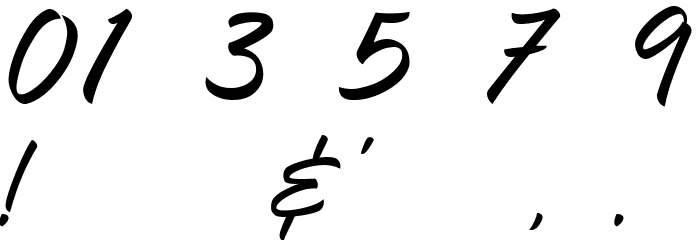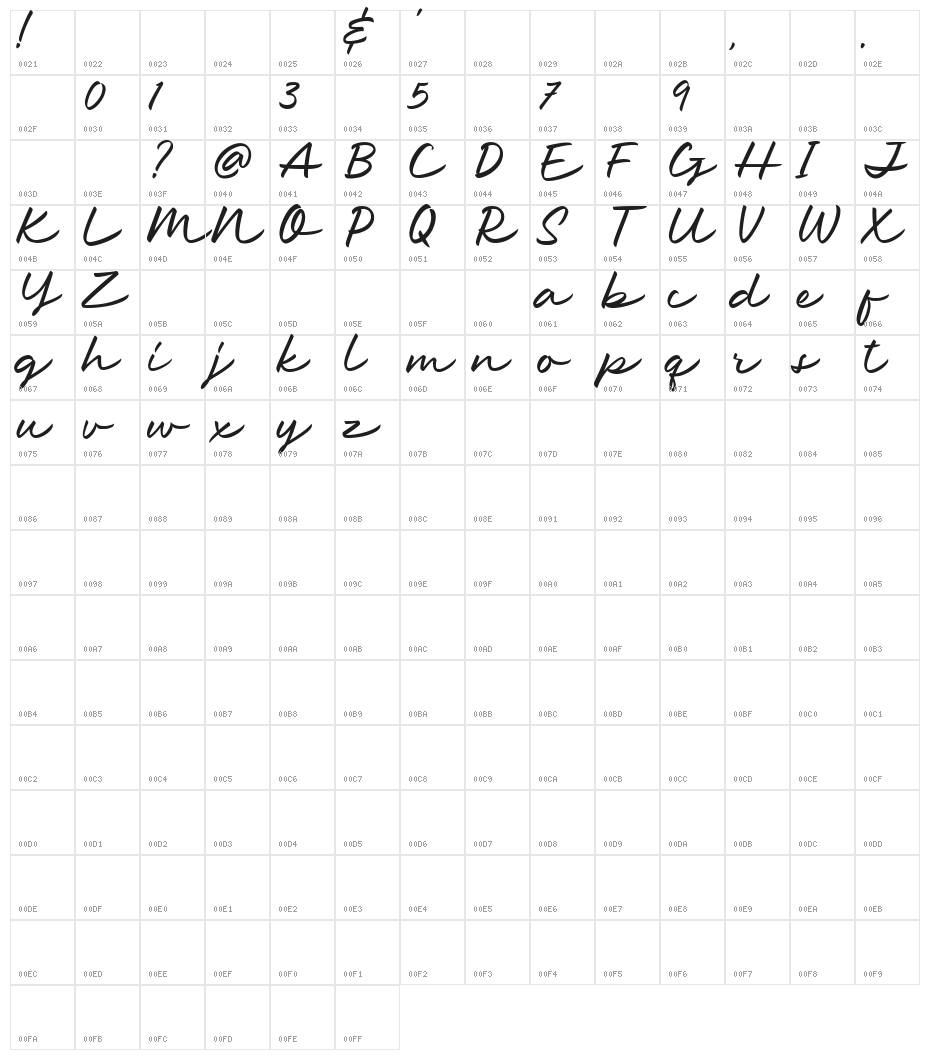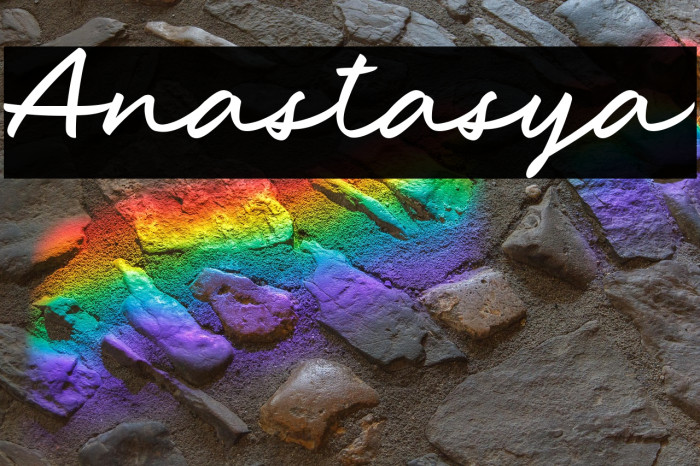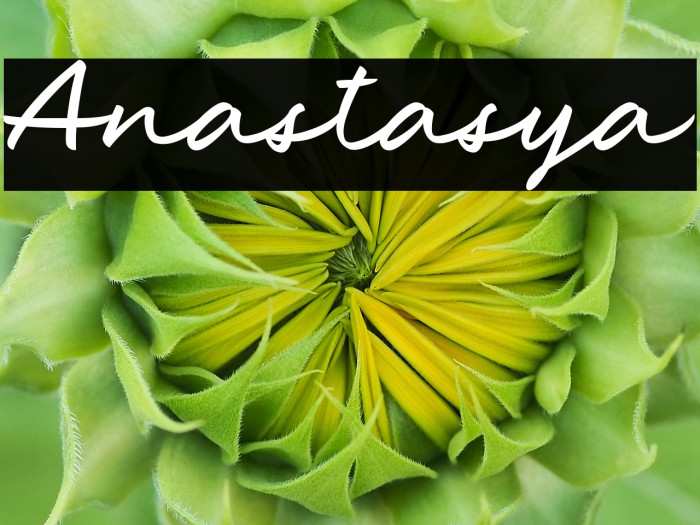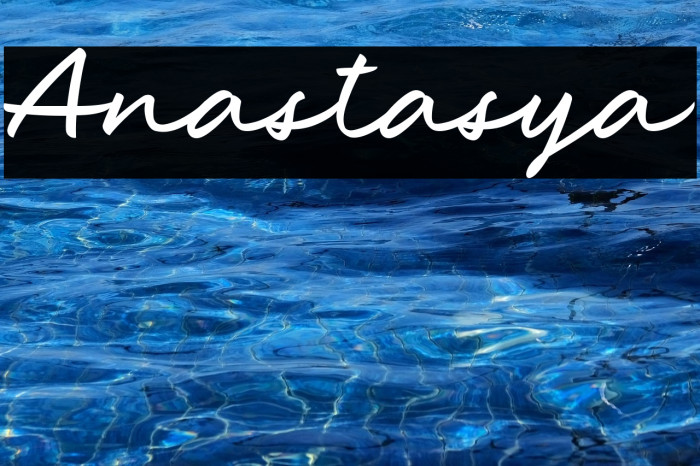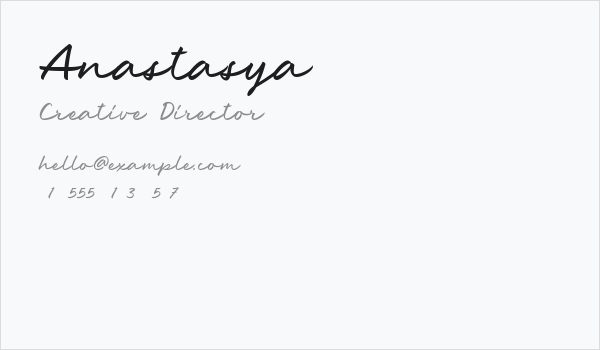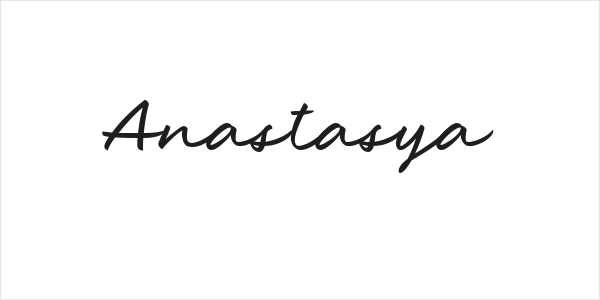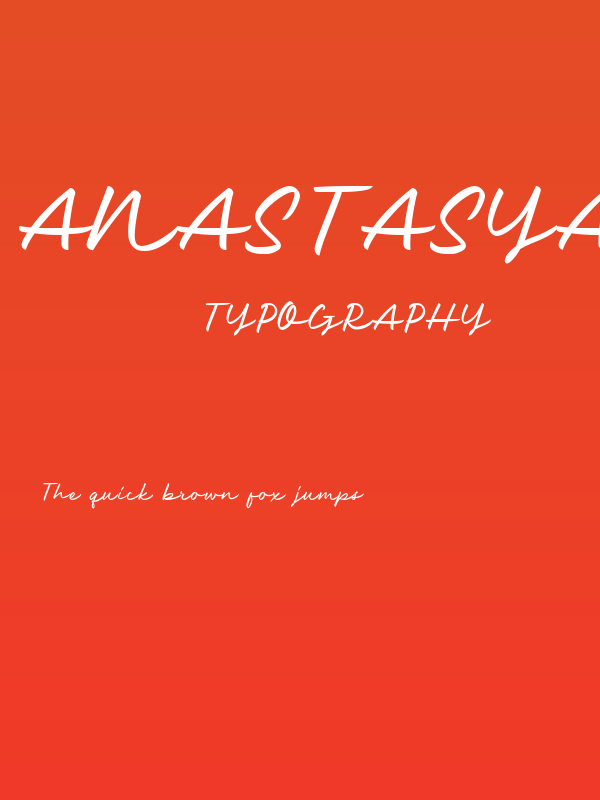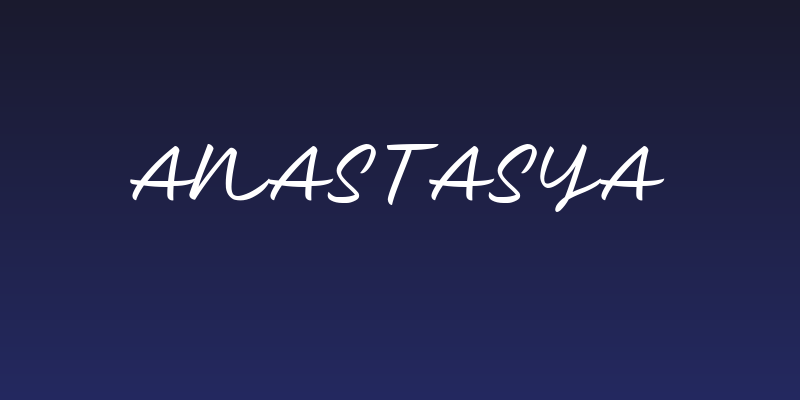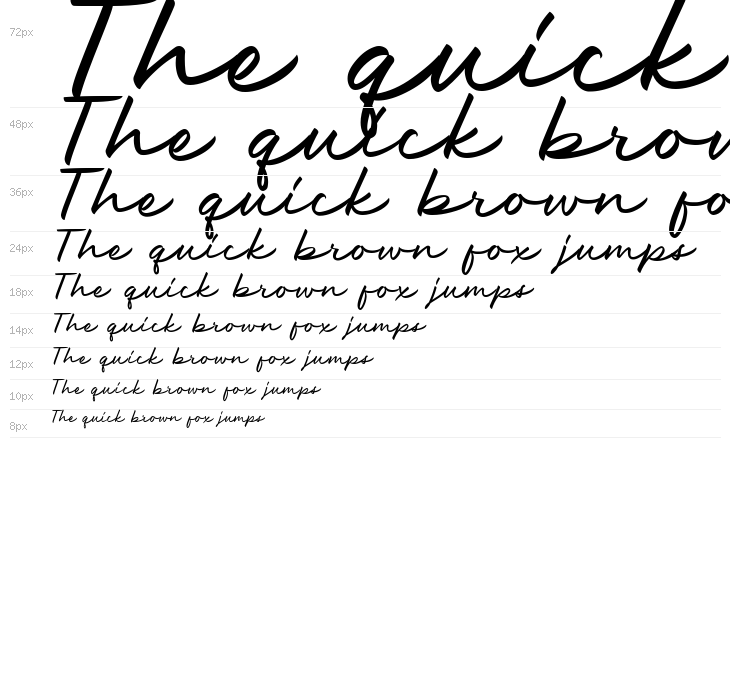
Anastasya Font
Anastasya Description
This font features a flowing, cursive style that mimics elegant handwriting. The letters are connected, creating a seamless and fluid appearance. The uppercase letters are slightly larger and more pronounced, while the lowercase letters maintain a consistent flow. The numerals are bold and distinct, matching the overall cursive theme. Special characters are integrated smoothly, maintaining the handwritten aesthetic. The font exudes a sense of sophistication and personal touch, making it ideal for projects that require a personal or elegant feel.